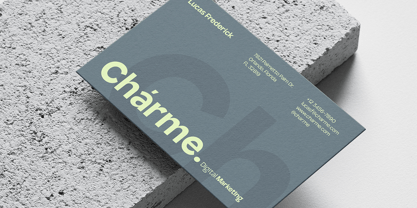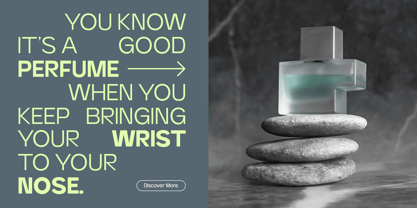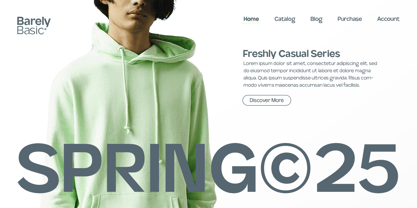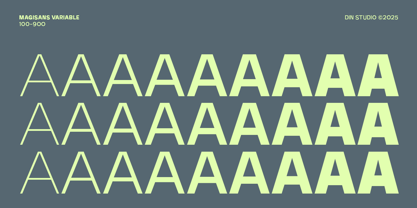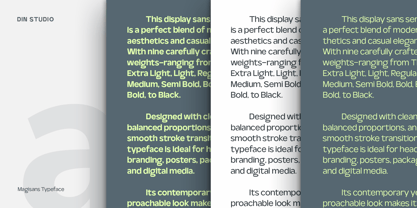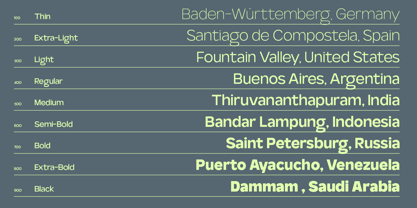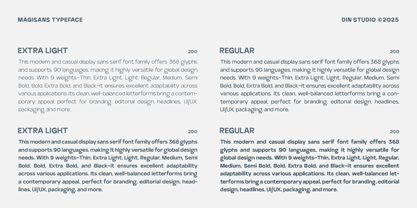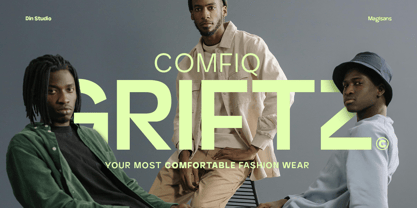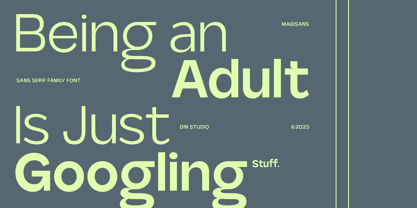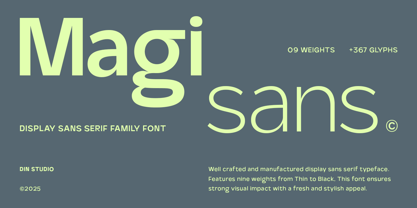
Magisans
by Din Studio
The Magisans Font Family was designed by Donis Miftahudin and published by Din Studio. Magisans contains 9 styles and family package options.
Magisans is a sophisticated sans-serif display font that blends elegance, simplicity, and modernity into a versatile typeface. Designed with clean lines and balanced proportions, this font exudes a refined aesthetic that suits both professional and creative projects.
With 9 different font weights, from Thin to Black, Magisans gives you the freedom to adapt its style to your needs—whether you seek a light and airy touch or a bold and impactful statement. Elevate your designs with Magisans, a font that embodies modern elegance with effortless readability. In addition, enjoy the features here.
Features:
• Multilingual Supports
• PUA Encoded
• Numerals and Punctuations
Magisans fits in logos, branding, editorial design, web interfaces, signage, and many more designs. Find out more ways to use this font by taking a look at the font preview.
About Din Studio
Din Studio is a type design studio founded by Donis Miftahudin in 2017. The studio focuses on creating unique and visually appealing script and display fonts that stand out in the industry. Donis Miftahudin is a well-known type designer in the industry and has created several popular fonts under the Din Studio brand.The fonts designed by Din Studio are characterized by their distinct style and aesthetic appeal. The studio's designs often incorporate unique elements, such as intricate ligatures and swashes, to create fonts that are not only visually stunning but also highly functional. The studio's fonts are often used in a variety of applications, including branding, advertising, and editorial design.Din Studio's fonts are highly regarded in the design community and have received recognition from industry publications and organizations. The studio has been featured in several design blogs and magazines, and its fonts have won awards at prestigious design competitions.One of the hallmarks of Din Studio's work is its commitment to innovation and experimentation. The studio is constantly exploring new techniques and approaches to type design, pushing the boundaries of what is possible in the field. This dedication to innovation has helped Din Studio establish itself as one of the most exciting and influential type design studios in the industry.Overall, Din Studio is a dynamic and innovative type design studio that is pushing the boundaries of what is possible in the field. With its focus on unique and visually appealing script and display fonts, the studio is poised to continue making a significant impact in the design community for years to come.